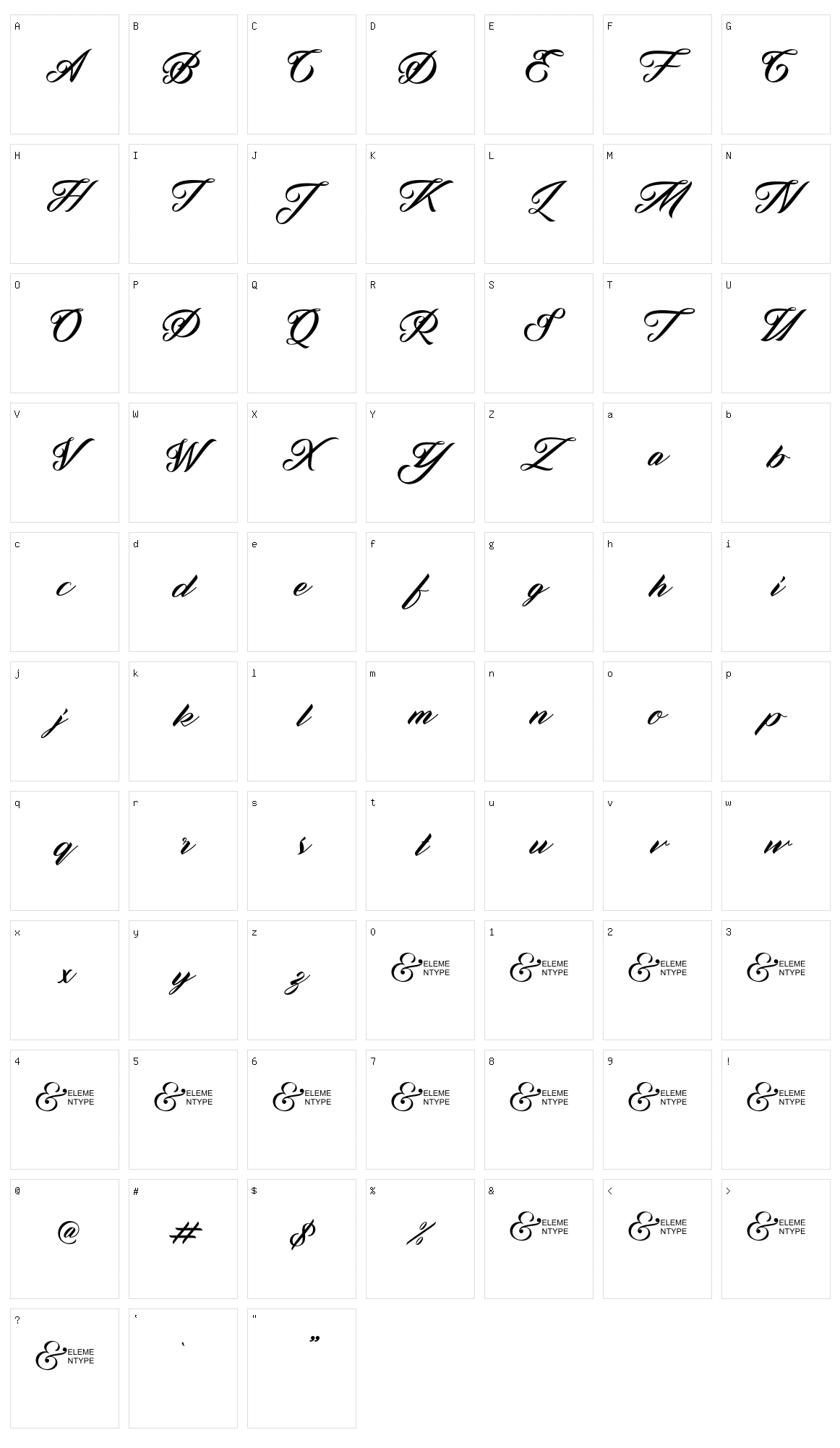
The free font Zephan is carefully designed by Aantebas, showcasing a thoughtful balance of creativity and usability and falls under the Script font style. When you download the ZIP file, it contains only 29.27 KB of font files, making it lightweight and quick to download. Please review the license details below to understand permitted usage and distribution rights. If license information is not available, we recommend using this font for personal projects only or contacting the author directly for commercial usage permissions.
Characters available in the demo version is only a small part of that is